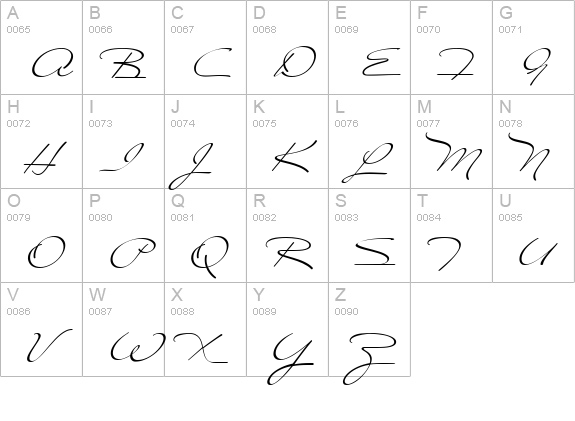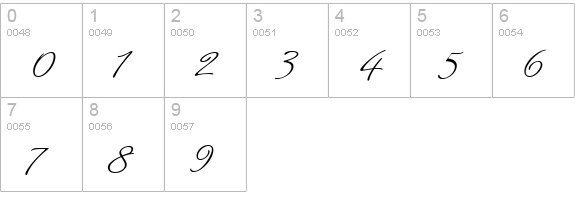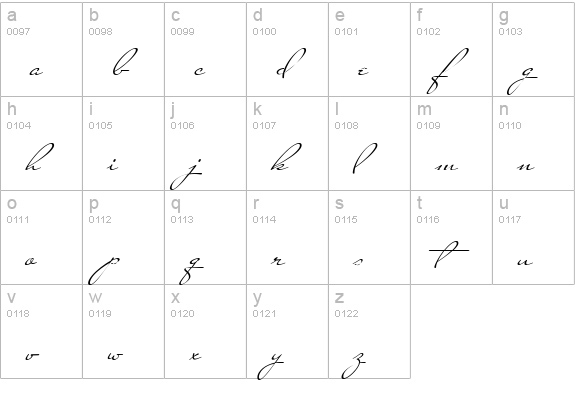
Miss Stanfort Font Details
Miss Stanfort font is a stunning and elegant typeface that exudes sophistication and charm. With its graceful curves and stylish serifs, this font is perfect for adding a touch of class to your designs. Whether you're working on invitations, logos, or branding materials, Miss Stanfort will elevate your projects to the next level. What's even better is that Miss Stanfort font is completely free to download at FontsMarket.com. Now you can access this exquisite font without any cost, making it a valuable addition to your font collection. Don't miss out on the opportunity to enhance your designs with the timeless beauty of Miss Stanfort font. Download it today and start creating stunning visuals that will leave a lasting impression.